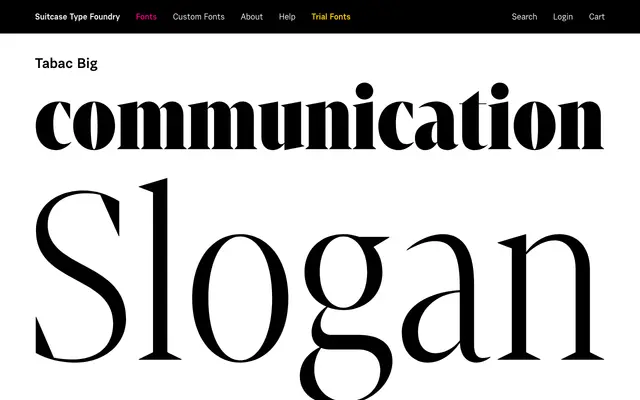
A display-oriented serif from Suitcase Type Foundry, forming the core upright branch of the Tabac Big superfamily alongside slab, sans and glam companions.
Part of the broader Tabac ecosystem from Prague-based Suitcase Type Foundry, Tabac Big is a display-scaled serif offered in 16 fonts alongside matching Slab, Sans and Glam subfamilies. The superfamily structure makes it well suited to editorial and branding work where consistent type systems across contrasting styles are needed. Related fonts in the wider Tabac family extend the range further for text-setting applications.
Tabac Big sits within the Tabac superfamily alongside slab and sans companions, suggesting a classical serif core; the 'Big' designation implies display-scale optical sizing within a multi-style system.